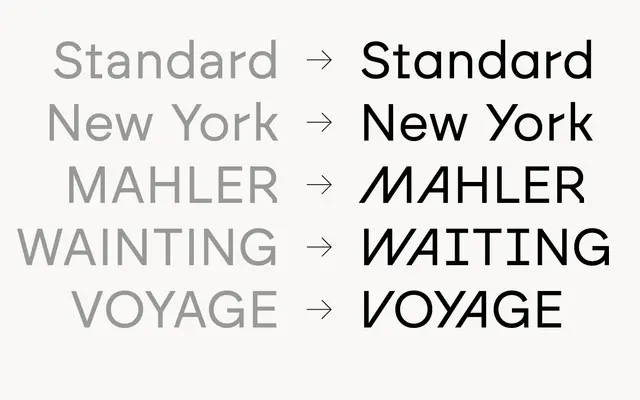
Brockmann
atipo foundry · Raul Garcia del Pomar, Ismael Gonzalez · 2022
A neo-grotesque sans by atipo named for Josef Muller-Brockmann, sitting in the Swiss modernist tradition with four weights and italics.
A neo-grotesque sans by Raul Garcia del Pomar and Ismael Gonzalez at atipo foundry, named for Swiss designer Josef Muller-Brockmann. Brockmann offers four weights from Regular to Bold with matching italics, with stylistic alternates, tabular figures and fractions in the OpenType layer. The drawing leans Swiss and rational rather than humanist, sitting close to Helvetica and Akzidenz Grotesk in tone, and is positioned for editorial systems and identities that want quiet authority.
A neo-grotesque sans named for Josef Muller-Brockmann, drawing on Swiss modernist sans serifs in the lineage of Helvetica and Akzidenz Grotesk. Built for editorial and identity work that wants a quiet, rational tone.